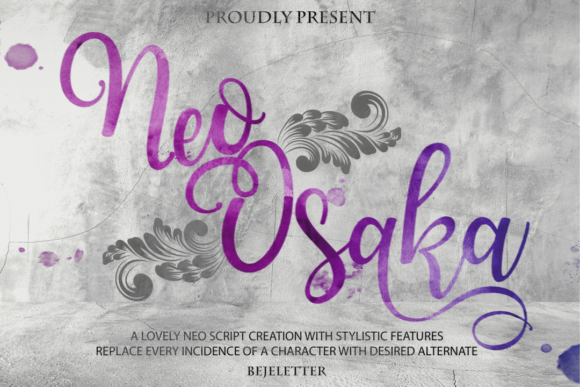
Unleash the flair of your business cards with Neo Osaka Font, the captivating script family that adds a touch of elegance and distinctiveness to your designs. Created by the talented bijeh.studio, Neo Osaka is more than just a font; it's an artistic expression that transforms your words into visually stunning creations. Its stylish features and meticulously crafted glyphs and swashes make it the perfect choice for adding a personal touch to a wide range of projects.
Step into the world of Neo Osaka and discover a font that breathes life into your branding projects, product packaging, and social media presence. Its graceful curves and dynamic lines command attention, making your designs stand out from the crowd. Whether you're designing wedding invitations, sports jersey numbers, or simply seeking to express your individuality, Neo Osaka is your perfect companion.
With Neo Osaka's PUA encoding, accessing the full range of its characters and swashes is a breeze. Unleash your creativity and let your designs soar with the limitless possibilities that Neo Osaka offers. Transform your business cards into works of art, captivate your audience with striking product packaging, and leave a lasting impression with every social media post. Say goodbye to ordinary and embrace the extraordinary with Neo Osaka Font.